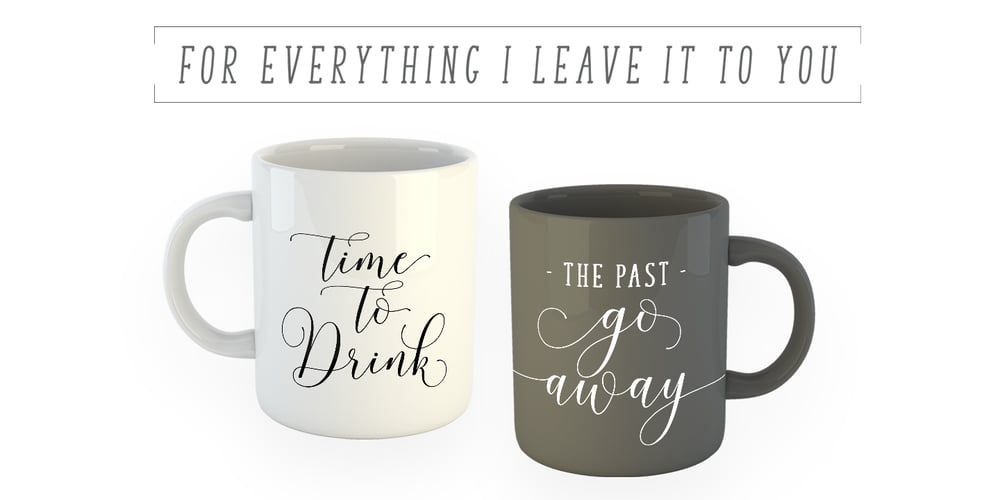
Pamithais Script
Pamithais Script font
Pamithais Script Font Family was designed by Barmawi and published by Creative Lafont. Pamithais Script contains 2 styles and family package options. Pamithais Script is a unique blend of classic and modern font. It includes an imperfect style of ups and downs, like a dancing letters, smooth, clean and simple. Pamithais Script font perfect for wedding, event, invitation, escort card, table number, header menus, display, logos, slider blog, custom address, stamps, packaging, greeting card, etc. Pamithais Script comes with a complete set of standard characters, eastern diacritic symbols, consist 902 glyphs in total, and 501 alternative characters as OpenType features to play with. The alternative characters were divided into several OpenType features such as Ligature and Stylistic Sets. You can create an attractive message by using the alternate characters in your design. If you don’t have a program that supports OpenType features such as Adobe Illustrator and CorelDraw X Versions, you can access all the alternate glyphs using Font Book (Mac) or Character Map (Windows). If you have any question, don’t hesitate to contact me by email: Creative.lafont@gmail.com Thank You !